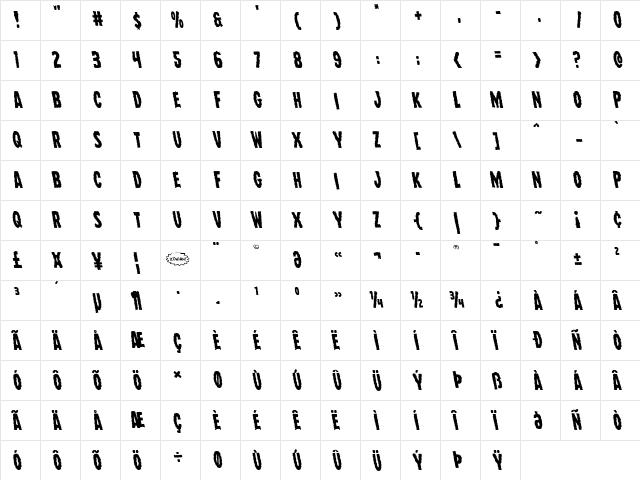
Wolf Brothers Leftalic Italic
Design Context for Wolf Brothers Leftalic Typeface
Wolf Brothers Leftalic is a composed and adaptable typeface that performs quietly and consistently across a wide range of design contexts. The slanted form adds forward momentum and visual energy.
Pro Tip: Use Wolf Brothers Leftalic for emphasis, pull quotes, and subheadings where its slanted energy can add rhythm to the layout.